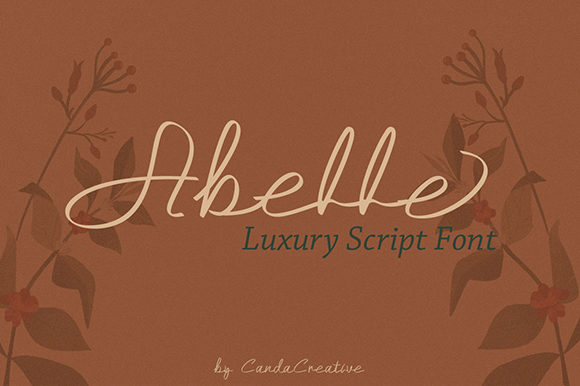
The Abelle Font: A Beautiful Script to Elevate Your Designs
I still remember the time I was working on a project for a client who wanted a elegant and sophisticated look. I had spent hours browsing through font libraries, but nothing seemed quite right. That was when I stumbled upon the Abelle font. Its light, airy lettering immediately caught my attention, and I knew I had found the perfect fit. In this article, I’ll share my experience with the Abelle font, its features, and how to make the most of it in your designs.
An Honest Review of Abelle Font
The Abelle font has won my heart with its authentic charm and beautiful script. Here’s what I love about it:
- ✨ Light and airy lettering that’s perfect for elegant designs
- 💫 Beautifully crafted with attention to detail
- 🎨 Versatile and suitable for various design projects, from branding to wedding invitations
However, I did notice a few minor quirks:
- 🤔 Limited character set compared to some other fonts
- ⚠️ Not ideal for body text or long paragraphs, as it can be a bit too light
The Story Behind Abelle Font
The Abelle font was designed with the intention of creating a beautiful, elegant script that would evoke a sense of sophistication and refinement. The designer aimed to craft a font that would be versatile and suitable for various design projects, from branding to wedding invitations. With its light, airy lettering and attention to detail, Abelle font has become a popular choice among designers and crafters.
| Font Name | Abelle Font |
| Author | candacreative |
| What is the Abelle font best suited for? | The Abelle font is best suited for designs that require an elegant, sophisticated look, such as branding, wedding invitations, and luxury packaging. |
| Is the Abelle font suitable for body text? | No, the Abelle font is not ideal for body text or long paragraphs, as it can be a bit too light. It’s best used for headings, titles, or short paragraphs. |